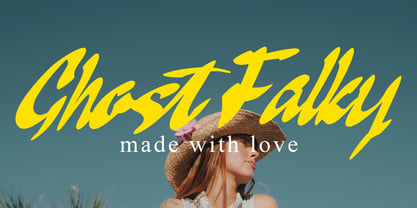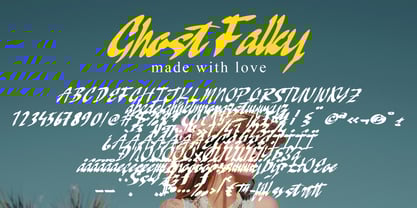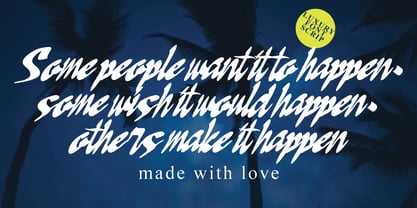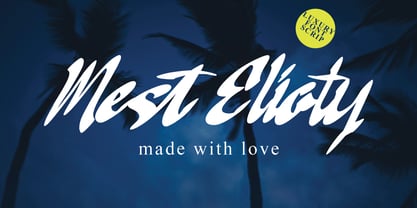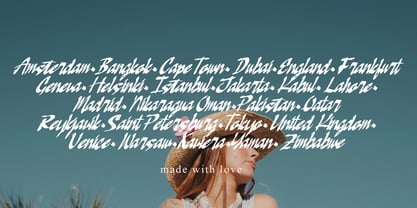
Ghost Falky
by Ayska
The Ghost Falky Font Family was designed by Dhoni Trihatmoko and published by Ayska. Ghost Falky contains 1 styles. More about this family
Immerse yourself in the bewitching enchantment of Ghost Falky, a distinctive font that marries modern sophistication with handmade elegance. Ghost Falky exudes an unparalleled charm, poised to be your faithful compatriot on every digital art expedition. It's celebrated for its versatility, employing its unique charm to captivate blog readers, infuse an element of exclusivity into your virtual planner designs, imprint singularity on your invites, or express genuine sentiments in your homemade greeting cards. Relish the enduring elegance and inventiveness of Ghost Falky, perfect for enriching treasured photo albums or customizing décor. Its compelling flair transforms everyday digital visuals into extraordinary, magnetic masterpieces. Allow Ghost Falky to guide your artistic journey, etching a memorable vista of creative imprints. Plunge into the artistic magnificence of Ghost Falky, and witness your creative boundaries evolve into custom-made artworks.
Designers: Dhoni Trihatmoko